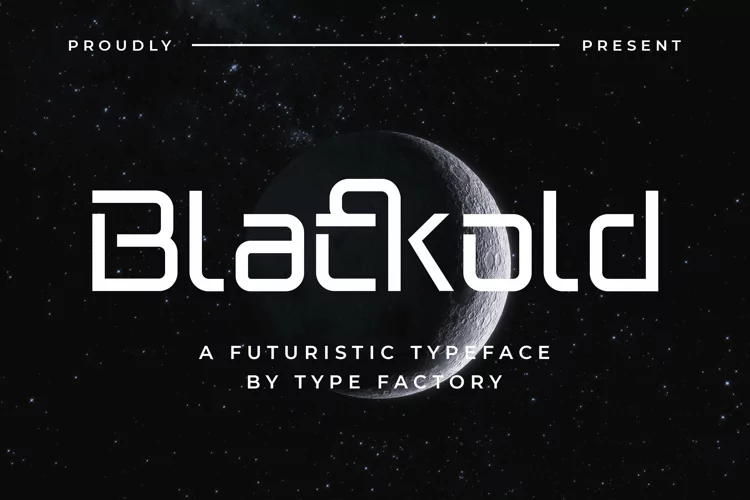
Blackold - Futuristic Typeface
Blackold is a tech-inspired font with a futuristic feel.
Use it to take any tech, game-font, or computer-themed design idea to the next level.
– Uppercase
– Lowercase
– Symbols & Punctuation
– Numeral
– Ligature
– Alternate
– Multilingual Support